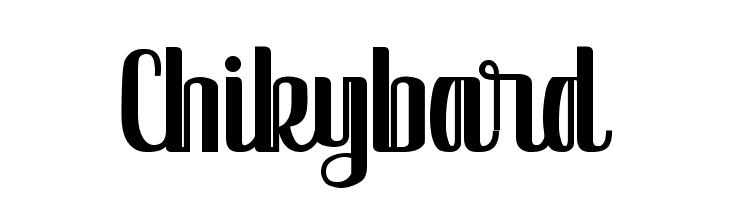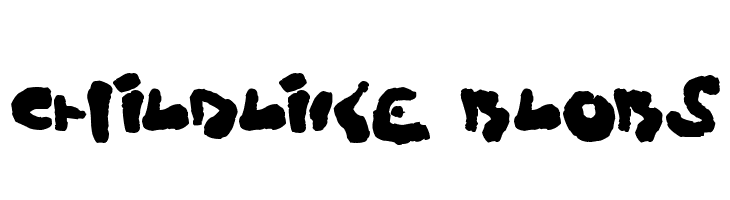
A dot matrix font with a retro digital display style.
Handwritten, rounded sans-serif with playful character.
Bold, angular, and dynamic font with a sporty, modern feel.
A decorative, hand-drawn font with swirling, sketch-like strokes.
An artistic, hand-drawn font with swirling, textured lines and a whimsical style.
A bold, playful font with exaggerated curves and a cartoonish flair.
A bold, gothic-inspired font with sharp, angular edges and dramatic serifs.
A bold, gothic-inspired font with sharp, angular edges and dramatic curves.
A classic serif typeface with high contrast and elegant serifs.
A bold, modern sans-serif font with tall, narrow uppercase letters and consistent numerals.
A playful, bold handwritten font with a casual and friendly style.
Bold, circular pictogram icon set with high contrast.
A playful, hand-drawn font with bold, irregular characters.
A bold, rounded font with a modern, playful aesthetic.
A fluid, elegant handwritten script with smooth, flowing lines.
A playful, handwritten font with a casual and friendly style.
A set of bold, geometric helmet icons with a modern, futuristic style.
A bold, decorative font with a vintage Western style.
An elegant and sophisticated script font with intricate, flowing strokes.
A bold, hand-drawn font with thick, uneven strokes and a playful yet assertive style.
A playful, casual handwritten font with smooth, flowing lines.
A bold, flame-embellished decorative font with intense visual impact.
A modern font with a blend of geometric and organic elements, offering a dynamic and cohesive style.
A bold, modern font with a geometric and futuristic design.
A bold, octagonal monogram-style font with a modern and geometric design.
Polygonal, iconographic set with numbers, letters, and symbols in octagonal shapes.
A bold, playful font with a three-dimensional outline effect.